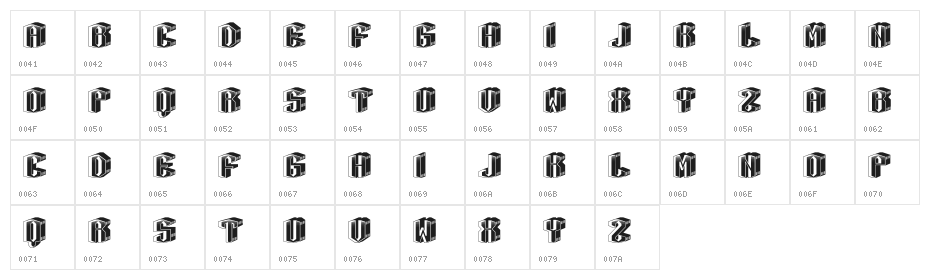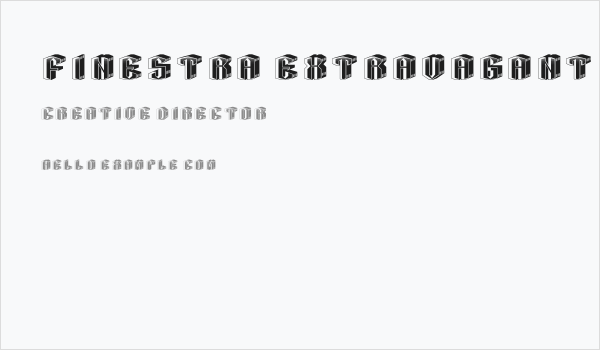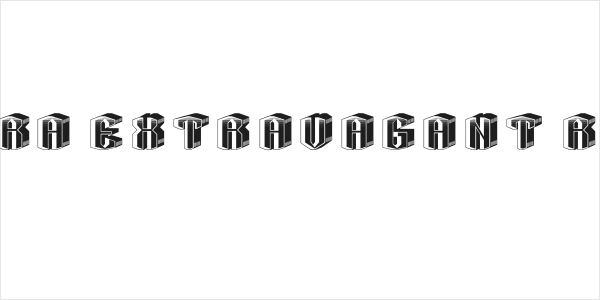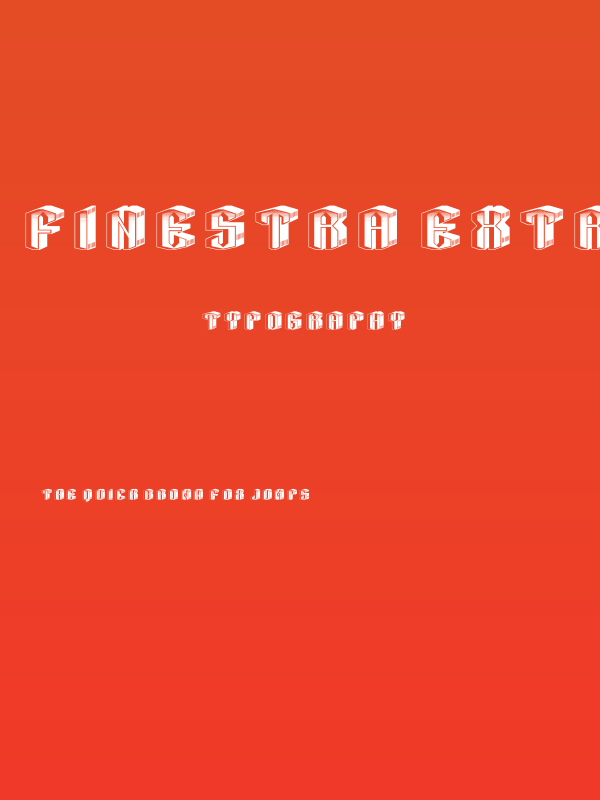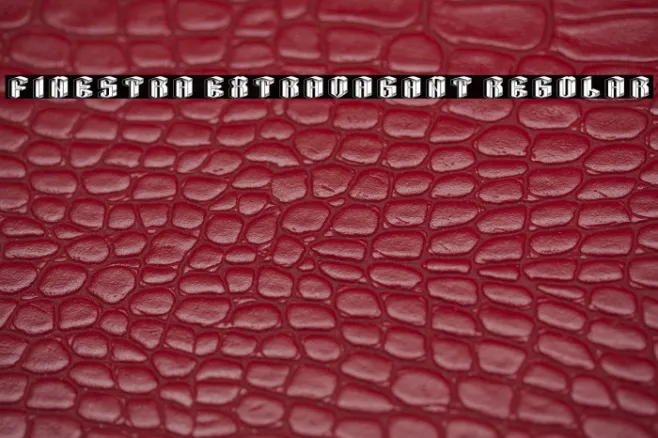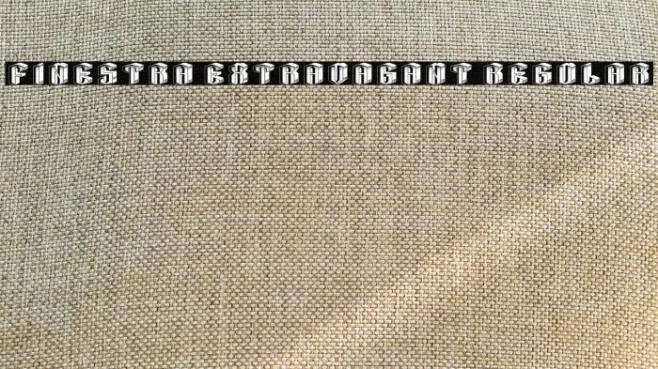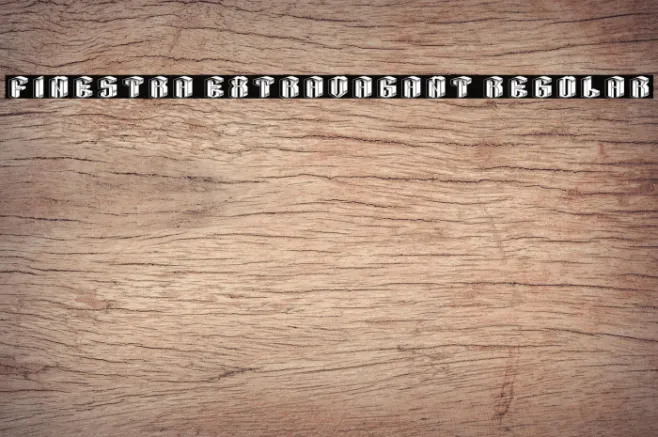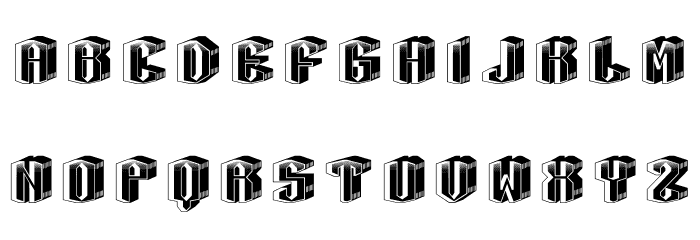
Finestra Extravagant Regular Font
Finestra Extravagant Regular Description
This font features a bold, three-dimensional design with a strong geometric influence. Each character is crafted with a shadow effect that gives it a sense of depth and volume, making it stand out prominently. The letters are uppercase and have a blocky, architectural style, reminiscent of Art Deco influences. The intricate detailing within each character adds a layer of complexity, making it suitable for eye-catching designs. The font's unique structure and bold presence make it ideal for projects that require a striking visual impact.
| Proposed Projects | Ideal for poster designs, branding, logos, and any project requiring a bold and striking visual element. |